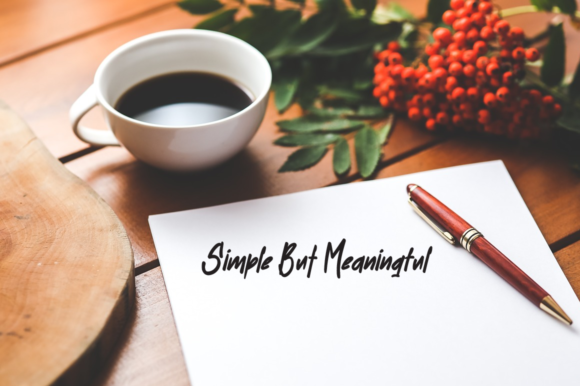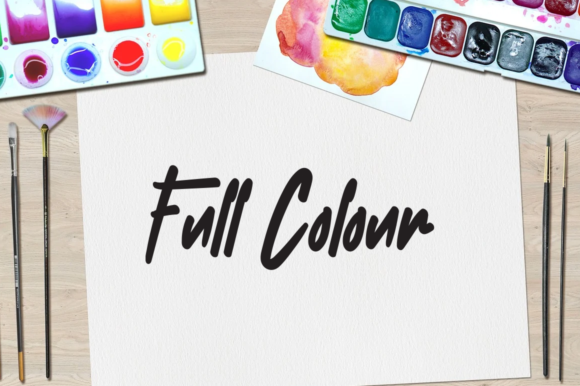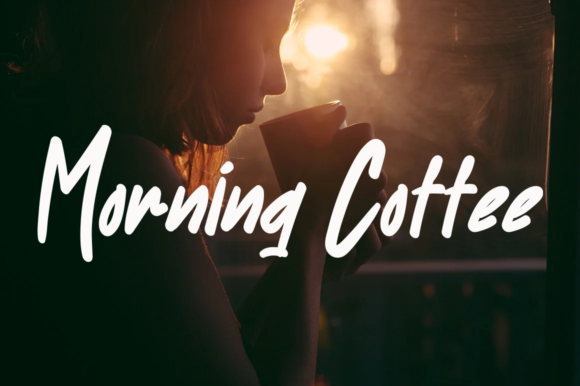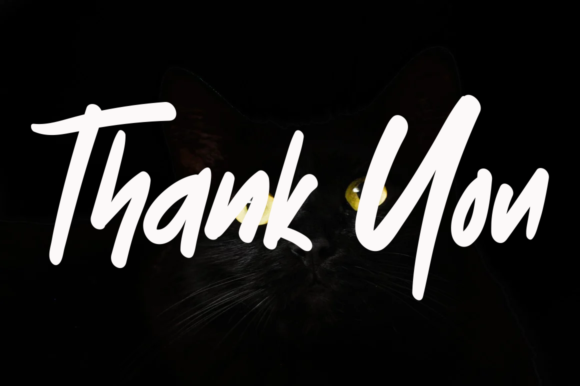
The Sweet Charm of Baby Bee Font
You know that moment when you’re working on a design project and you just can’t seem to find the right font? It’s like trying to capture a feeling, a mood, or a personality in just a few letters. And then, suddenly, you stumble upon it – the perfect font that brings your entire design together.
Meet Baby Bee Font, a dainty and genuine handwritten font that will add a touch of joy and romance to your projects. This beautiful font is perfect for creating invitations, greeting cards, or any other design that requires a gentle and whimsical feel. Whether you’re a seasoned designer or just starting out, Baby Bee Font is a valuable addition to your toolkit, offering a unique and customizable way to express your creativity.
Baby Bee Font Key Features
- Unique Characteristics: The Baby Bee Font features a playful and whimsical design, with rounded shapes and soft lines, perfect for creating a friendly and approachable atmosphere in designs.
Baby Bee Font Review
I recently had the chance to work with the Baby Bee Font and here’s my honest take on it.
- The font is undeniably cute and playful, making it perfect for kids’ products or family-focused brands.
- The font is highly customizable, allowing you to adjust the size, color, and even the thickness of the lines to fit your design needs.
- The font is available in a range of weights, from light to bold, giving you flexibility in terms of the overall aesthetic you want to achieve.
- The font may not be suitable for more formal or professional designs, as it can come across as too childish.
- The font’s simplicity can make it feel a bit generic, especially when used in large quantities.
- The font is not available in as many languages as some other fonts, which may limit its usability for global brands.
Overall, I think the Baby Bee Font is a solid choice for designers looking for a playful, customizable font. While it may not be perfect for every project, it’s a great option for those looking for a fun, child-friendly aesthetic.
The Baby Bee Font is ideal for:
1. Children’s party invitations and decorations.
2. Baby shower invitations and decorations.
3. Playful social media graphics and advertisements.
4. Custom illustrations and graphics for children’s products.
The Baby Bee Font is designed to be highly legible at various font sizes. For body text, we recommend using font sizes between 12px and 18px. For headings, font sizes between 24px and 48px are suitable.